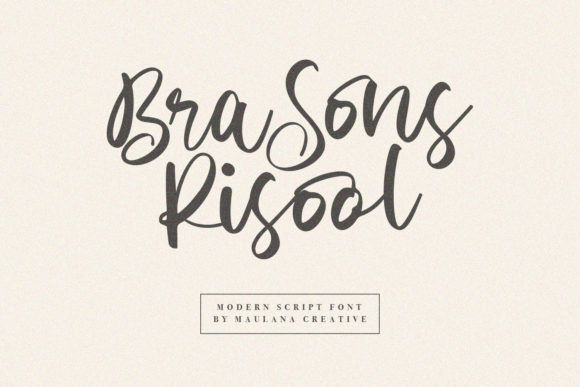
Brasons Risool: A Font That Elevates Editorial Design
There’s a quiet magic in the way a font can shape the soul of a publication. When I was redesigning the header for my lifestyle blog, I knew I needed something that felt both elegant and approachable. After testing several options, I found myself drawn to Brasons Risool. It wasn’t just its beauty that caught my attention—it was how it spoke to the essence of editorial design.
The Rhythm of Handwritten Elegance
Brasons Risool is a handwritten font with a refined touch. It carries the warmth of a personal note but maintains a level of sophistication that feels fitting for professional content. Its flowing strokes and subtle serifs create a rhythm that’s both inviting and intentional. It’s not just a font—it’s a visual narrative that invites readers to slow down and engage with the text.
When I first used Brasons Risool for a recipe ebook cover, I noticed how it transformed the layout. The title, written in this font, became the focal point, drawing the eye without overwhelming the reader. It worked beautifully as a display font, adding character while still maintaining readability. For longer texts, I paired it with a clean sans-serif body font to ensure legibility across different screen sizes and devices.
Editorial Uses That Go Beyond the Cover
Brasons Risool isn’t just for headers or titles. It has a versatile personality that makes it suitable for a range of editorial applications. In a recent project, I used it for chapter openers in a digital magazine. The font’s elegant curves gave each section a fresh start, making the reader feel like they were stepping into a new story with every page turn.
I also experimented with using Brasons Risool as a pull quote in a lifestyle blog post. The font’s handwritten style added a personal touch, making the quote stand out without being distracting. It worked especially well when paired with a minimalist background, allowing the text to breathe and draw attention naturally.
For a wedding guide I designed, I incorporated Brasons Risool into the decorative accents—subtle flourishes on headings and section dividers. It brought a sense of handcrafted charm to the layout, reinforcing the theme of love and personalization that the guide aimed to convey.
Readability Meets Style
One of the most important aspects of any font is its readability. While Brasons Risool has a beautiful aesthetic, I made sure to test it across different mediums. On mobile devices, I adjusted the size and spacing to ensure it remained legible. In PDF exports, I checked how it rendered at various zoom levels, confirming that it maintained its elegance even when scaled down.
For print materials, I found that Brasons Risool looked stunning in both black-and-white and color. Its contrast with background colors was balanced enough to keep it readable without feeling too bold. This versatility makes it an excellent choice for both digital and physical publications.
Font Pairing: Finding the Right Balance
When working with display fonts like Brasons Risool, it’s crucial to pair them with complementary body fonts. In my latest newsletter design, I paired it with a modern sans-serif font for the body text. This combination created a clear visual hierarchy, guiding the reader’s eye from the headline to the supporting details seamlessly.
I also explored pairing Brasons Risool with a serif font for a more traditional look. This worked particularly well for a coaching workbook, where the font’s elegance supported the tone of guidance and reflection. The key was ensuring that the body text was easy to read, while the display elements added personality and interest.
Practical Considerations for Designers
Before finalizing any font for a project, I always check the included styles, alternates, ligatures, weights, and multilingual support. Brasons Risool offers a range of weights and alternates that make it adaptable to different design needs. Whether you’re creating a logo, a social media graphic, or a printable planner, the font’s flexibility ensures it can fit into your creative vision.
A Font That Speaks to the Soul of Content
Brasons Risool is more than just a font—it’s a tool for storytelling. It adds a layer of personality to editorial content, making it feel more human and relatable. Whether you’re designing a blog header, an ebook cover, or a printable guide, this font has the potential to elevate your work and create a lasting impression.
As I continue to experiment with Brasons Risool, I’m reminded of the power of thoughtful typography. It’s not just about aesthetics; it’s about creating a reading experience that resonates with your audience. And in a world where content is abundant, a font that stands out can make all the difference.